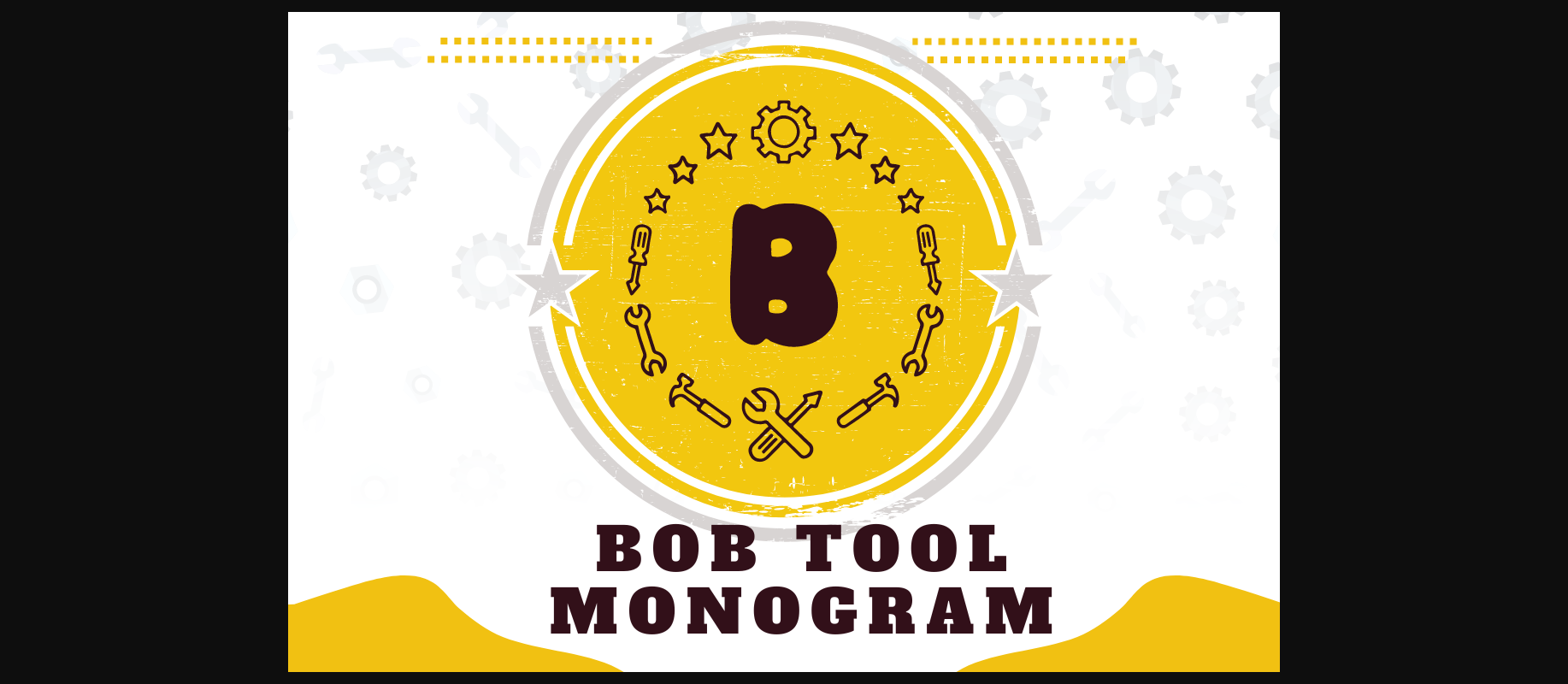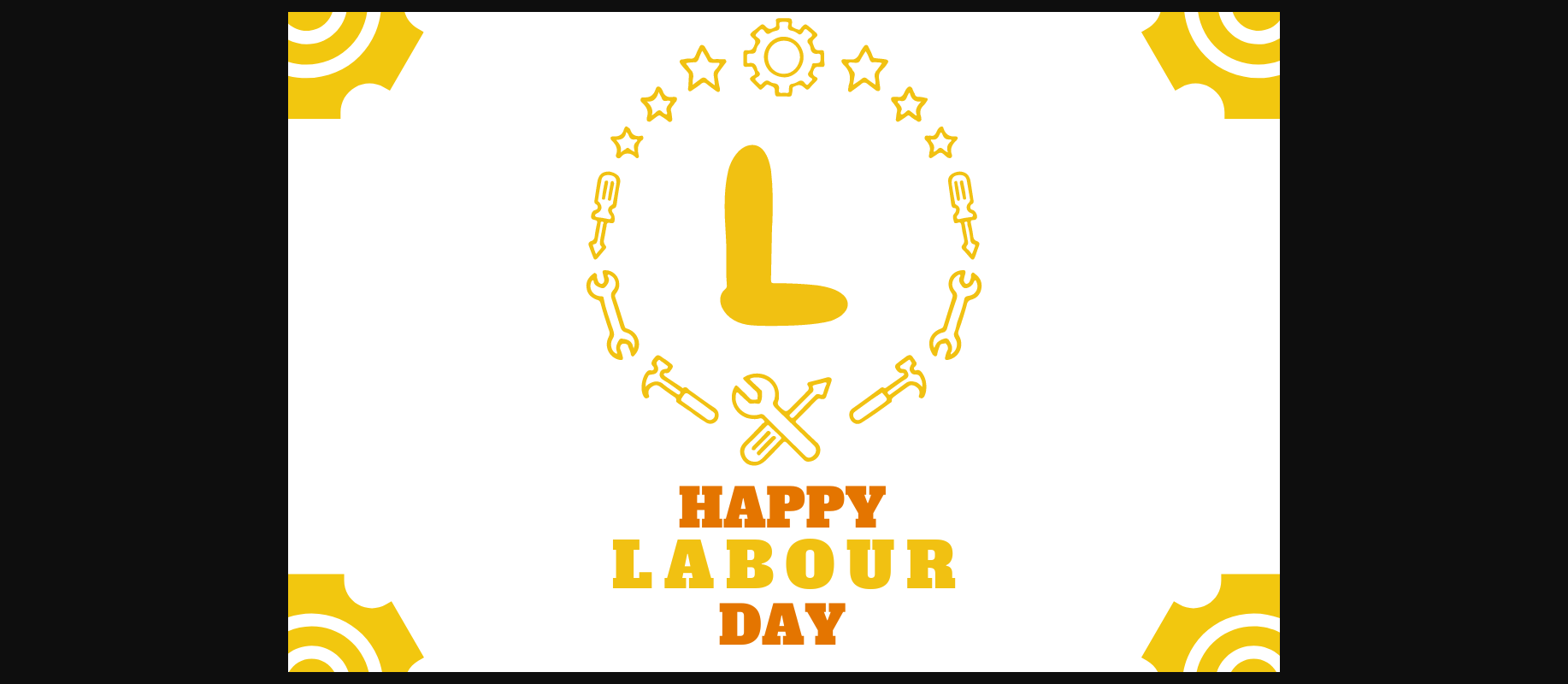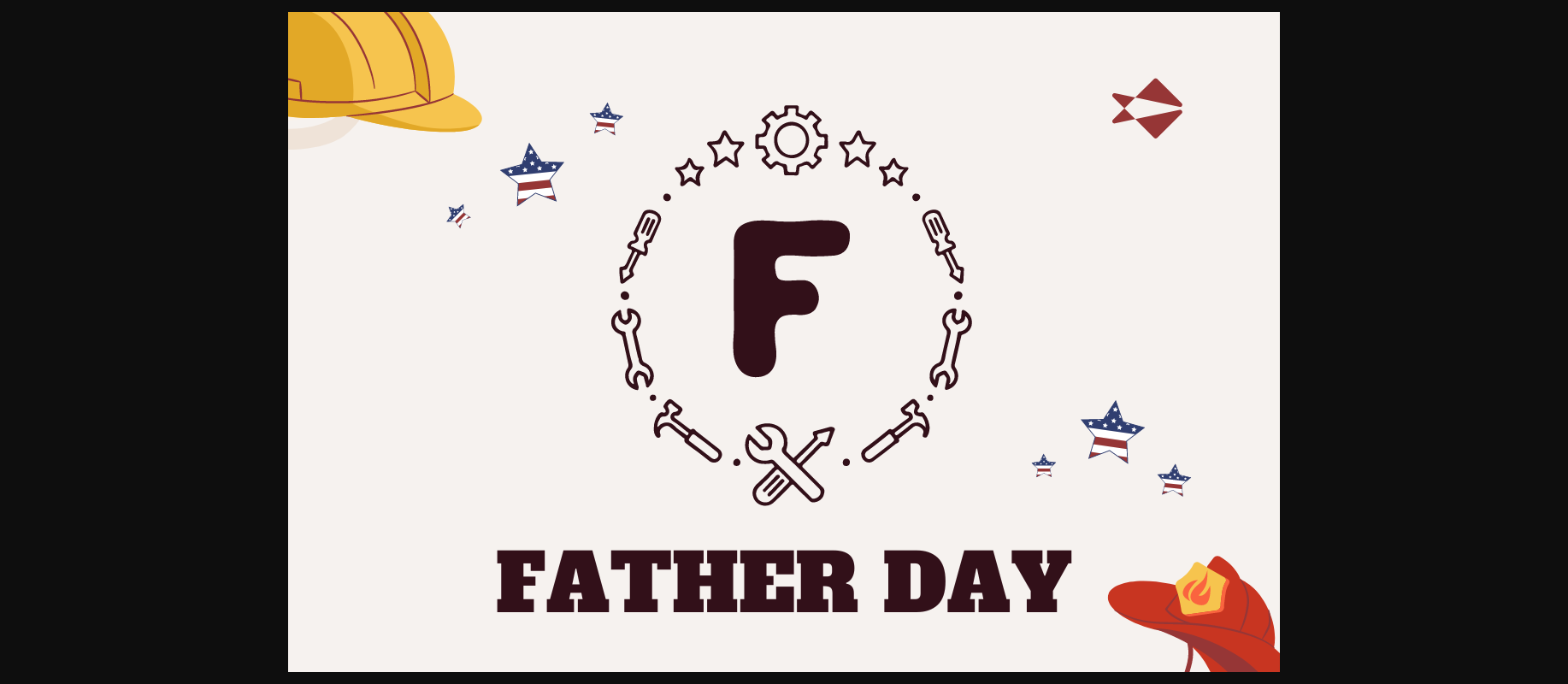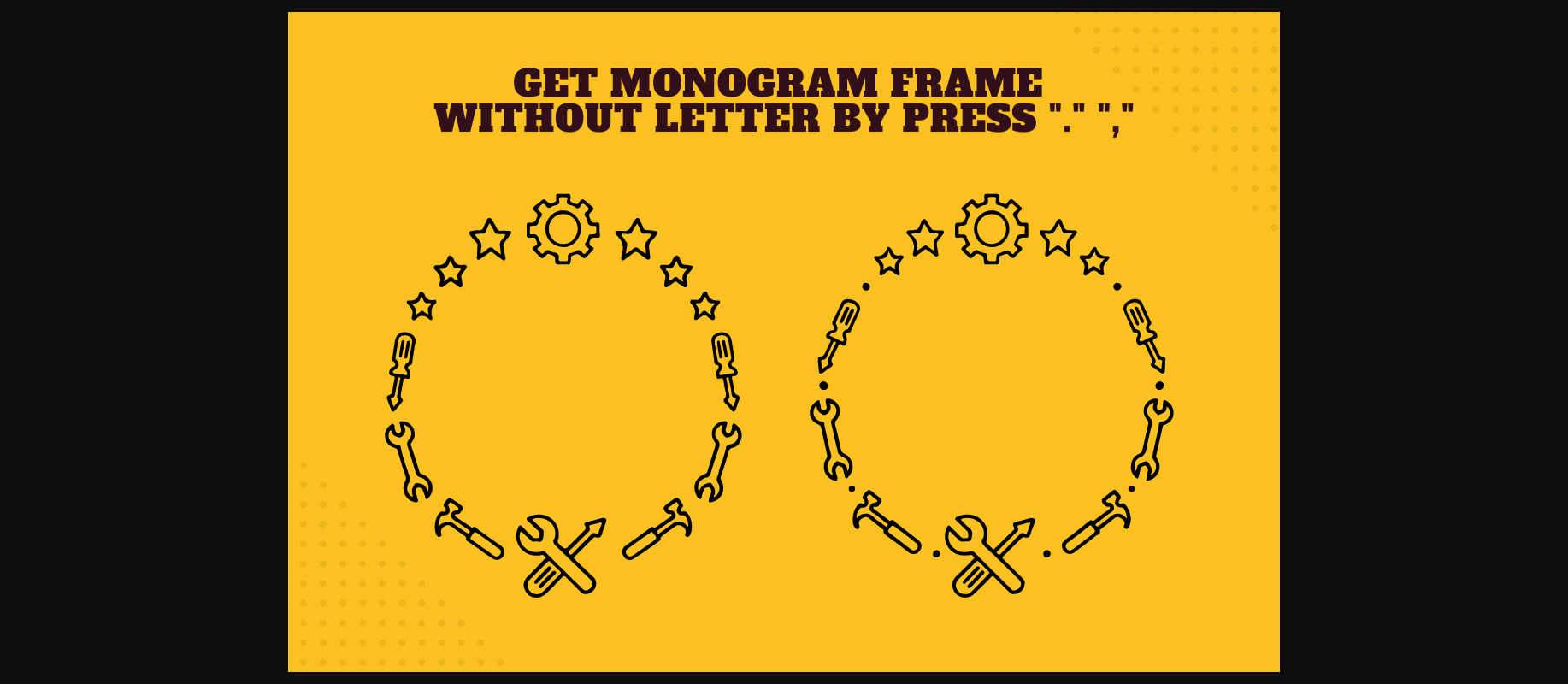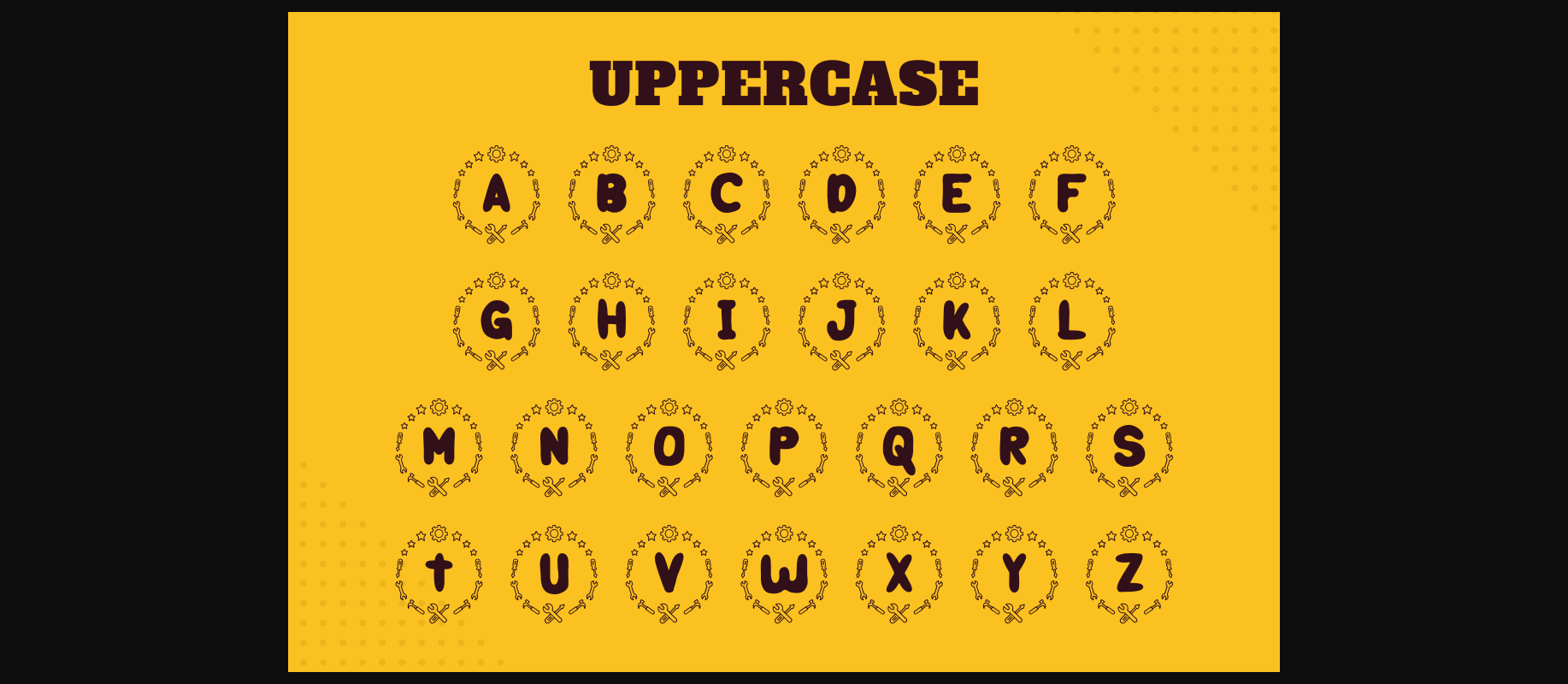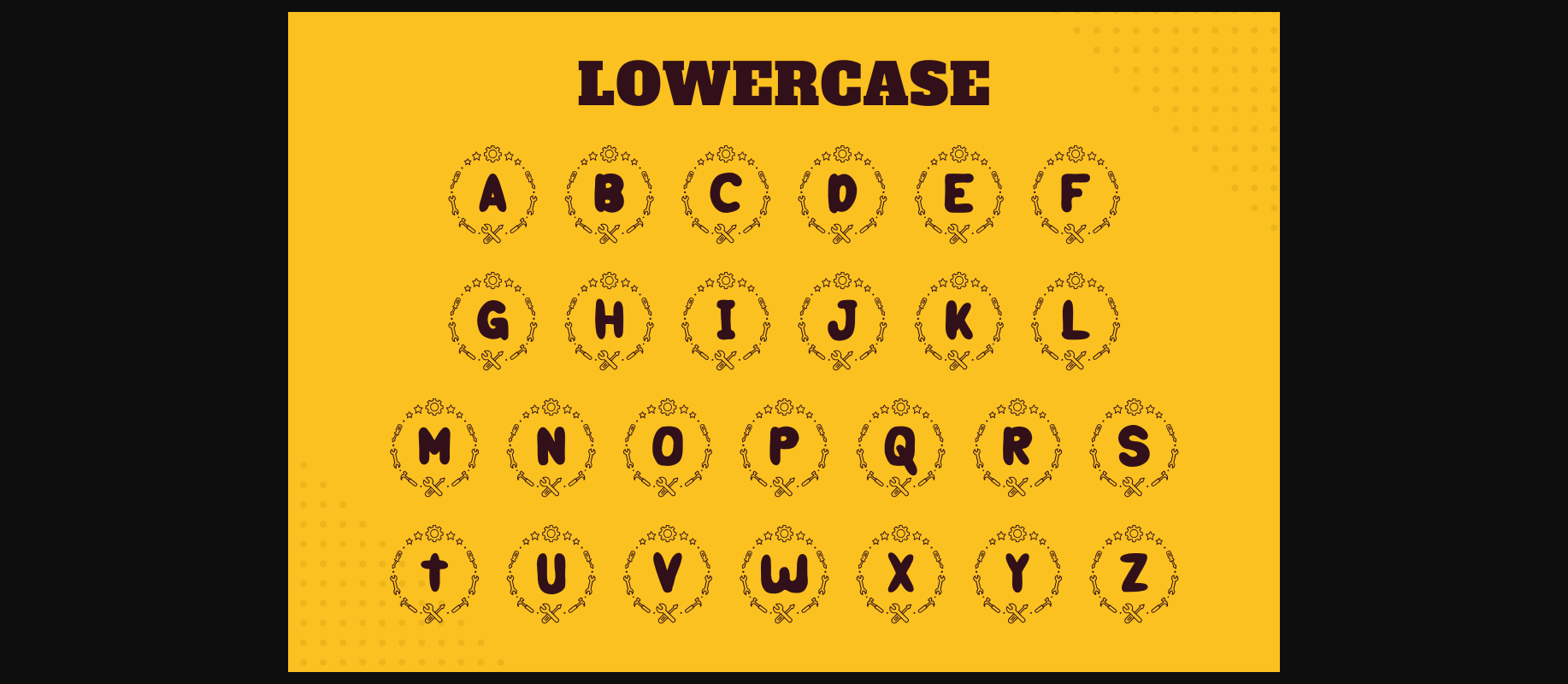
HomeDecorative FontsBob Tool Monogram Font Decorative Fonts Bob Tool Monogram Font FacebookXPinterestWhatsApp 1 of 8 ... Bob Tool Monogram Font Poster 2... Bob Tool Monogram Font Poster 3... Bob Tool Monogram Font Poster 4... Bob Tool Monogram Font Poster 5... Bob Tool Monogram Font Poster 6... Bob Tool Monogram Font Poster 7... Bob Tool Monogram Font Poster 8... About Bob Tool Monogram Font Bob Tool Monogram is a cool decorative font. With a strong and masculine look, this font is perfect for special occasions, business designs, logos, branding, social media posts, monogrammed gifts, and more! DOWNLOAD NOW People also explored Boo Cutie Font Simple Letter Font Pamelia Font Family Time Font Star out Font Smudge Font Positively Font Scalping Font Stroke Font 280 0 TagsBob Tool Monogram Font Previous articleHeartbreaker FontNext articleXmas Font LEAVE A REPLY Cancel reply Comment: Please enter your comment! Name:* Please enter your name here Email:* You have entered an incorrect email address! Please enter your email address here Website: Save my name, email, and website in this browser for the next time I comment. Personal Use Free Midnight Show Personal Use Free Read more about this font The Sweet Neo Personal Use Free Read more about this font Bolt Electric Personal Use Free Read more about this font The Lima Personal Use Free Read more about this font BLOG Free Fonts Risk: Why Free Fonts Can Be Dangerous for Designers Free Fonts Risk: Why Free Fonts Can Be Dangerous for Designers Using free fonts is a common practice in web and graphic design. However, the... Free vs Paid Fonts: Why Investing in Premium Fonts Is Worth It Exploring Font Trends Modern Sans-Serif Fonts That Brands Love in 2025